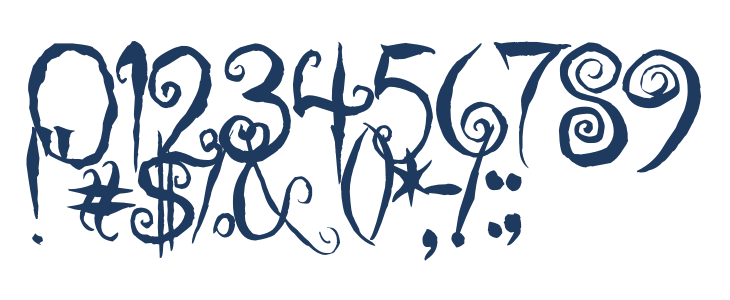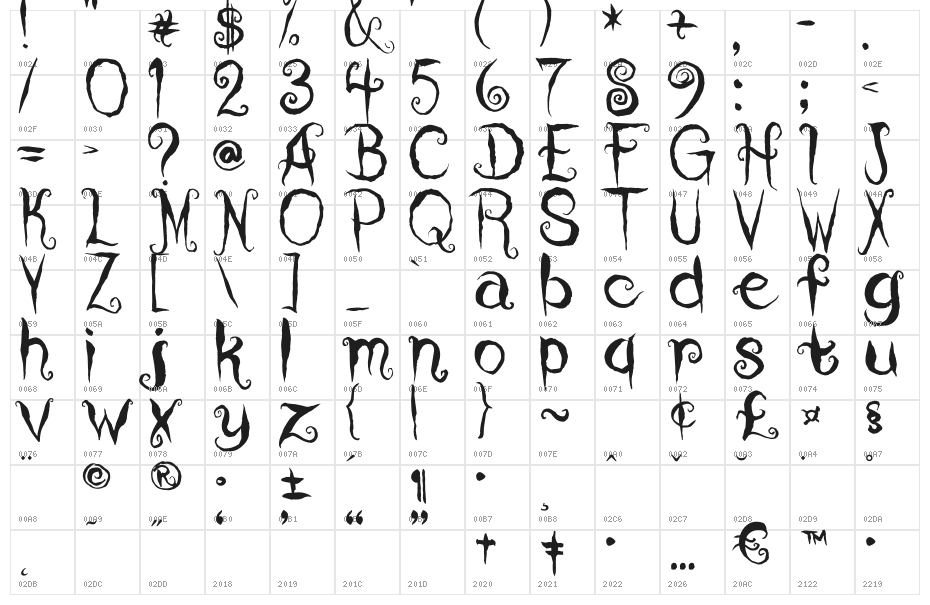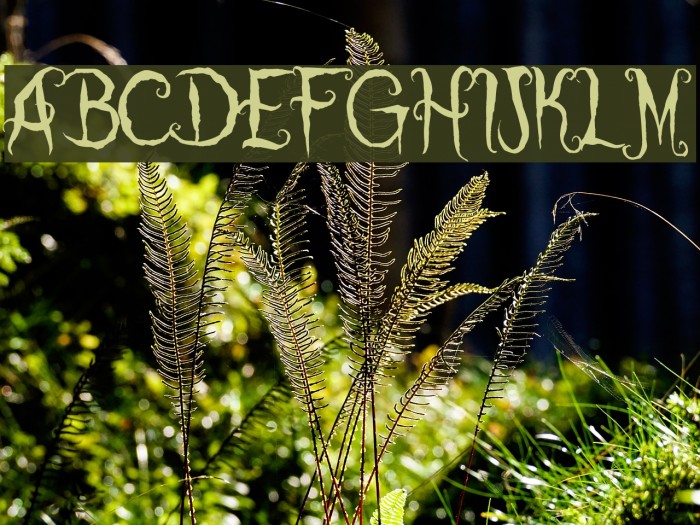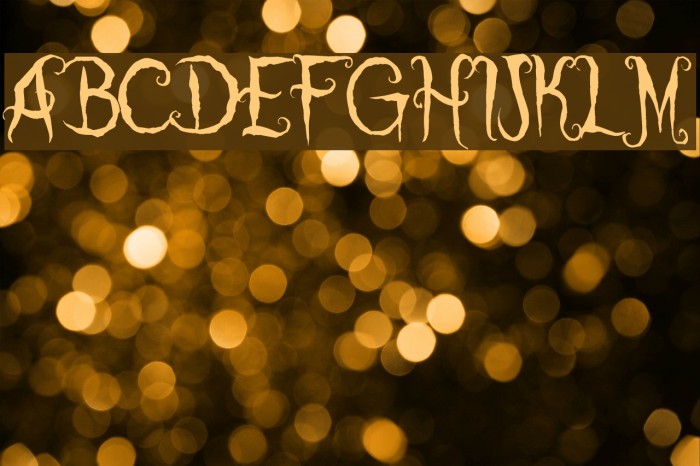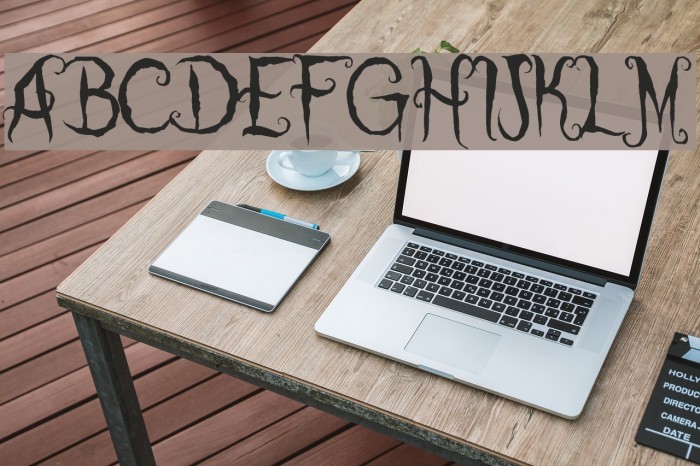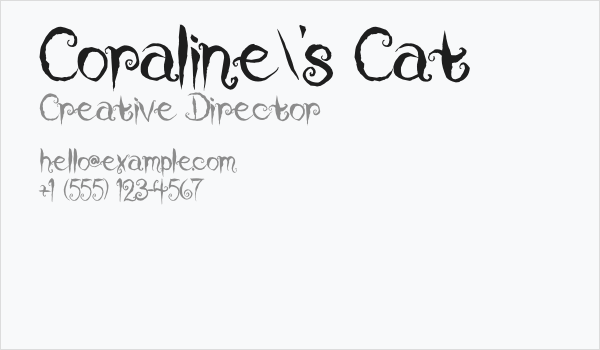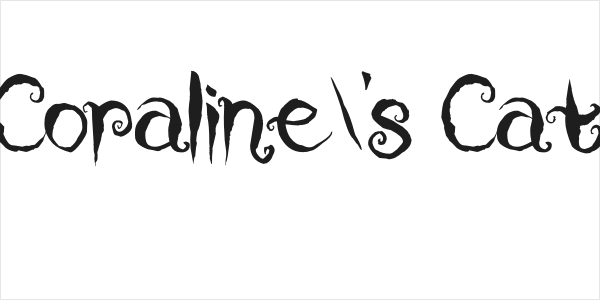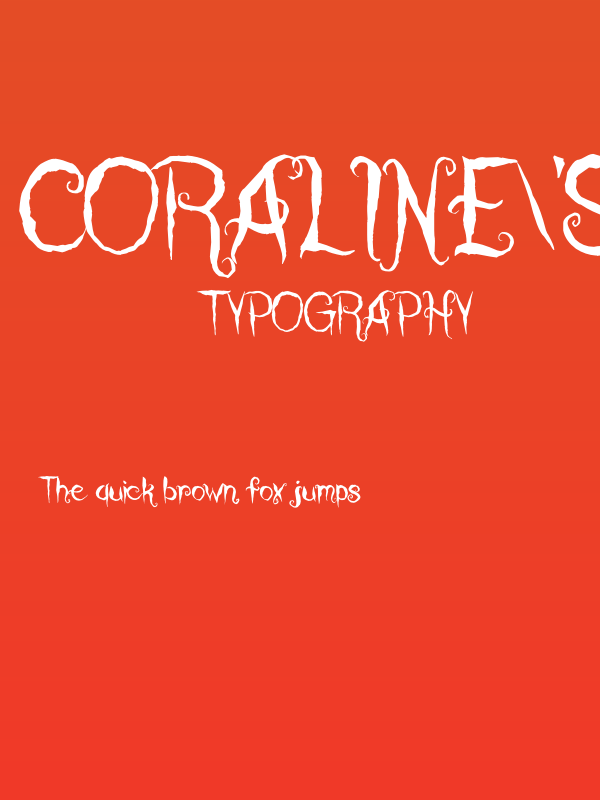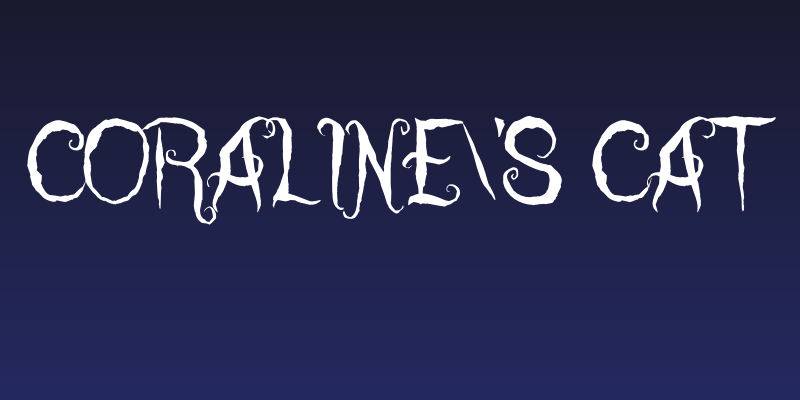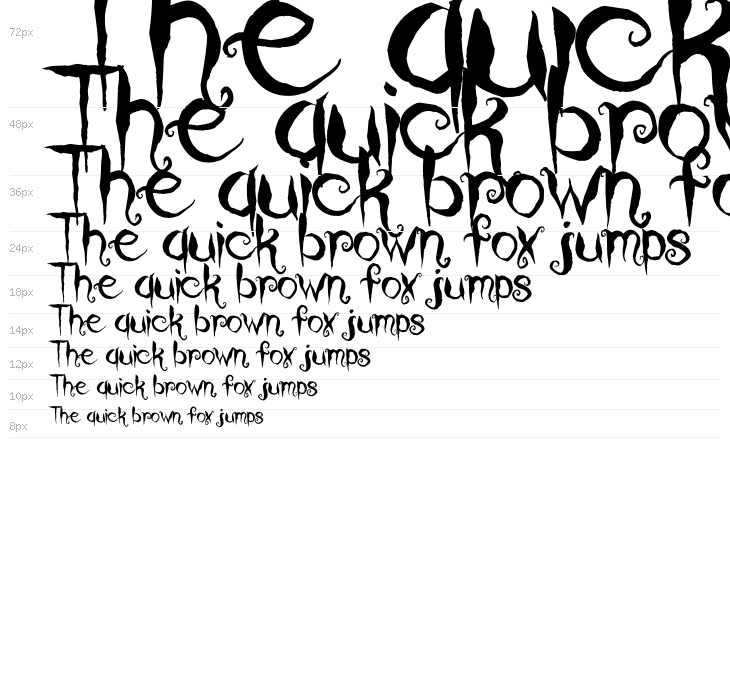
Coraline's Cat Font
Coraline's Cat Description
This font features a whimsical and eerie design, characterized by its elongated and twisted letterforms. The strokes are uneven, with some letters ending in sharp points or spirals, giving it a hand-drawn, almost haunted appearance. The uppercase letters are bold and dramatic, while the lowercase letters maintain a consistent style with unique flourishes. Numbers and special characters follow the same quirky and artistic theme, making this font ideal for creative and unconventional projects.
| Proposed Projects | Ideal for Halloween-themed designs, fantasy book covers, movie posters, or any project requiring a spooky, artistic touch. |